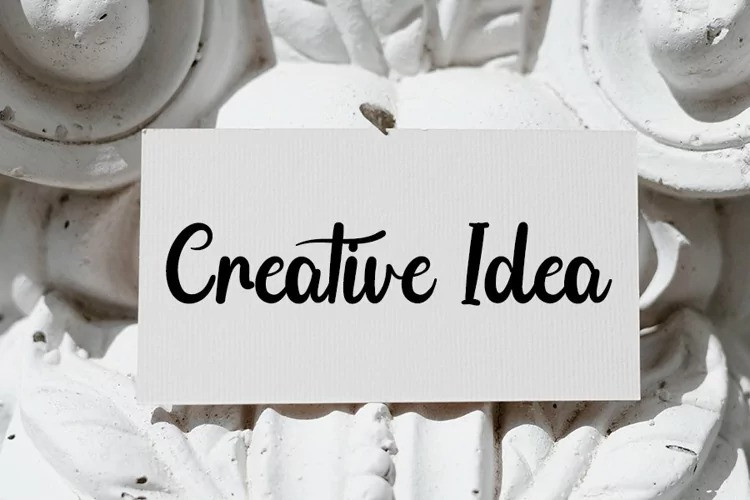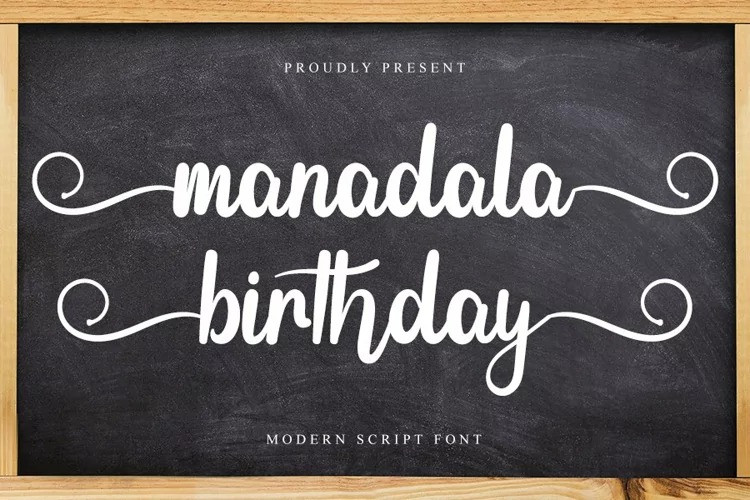
Mandala Birthday Font
Mandala Birthday Script Font your favorite projects. Fall in love with its completely different and timeless style and can use it to create wall designs, logos, wedding invitations, stationery, product labels, photography and much more.